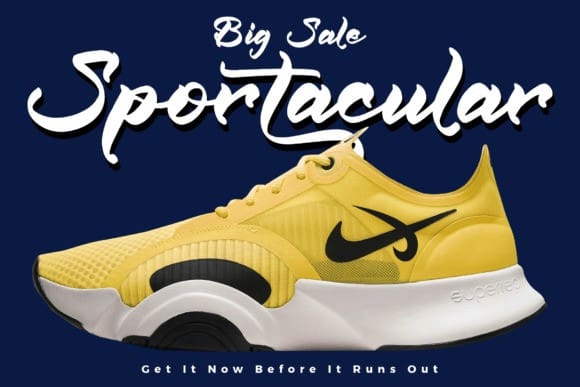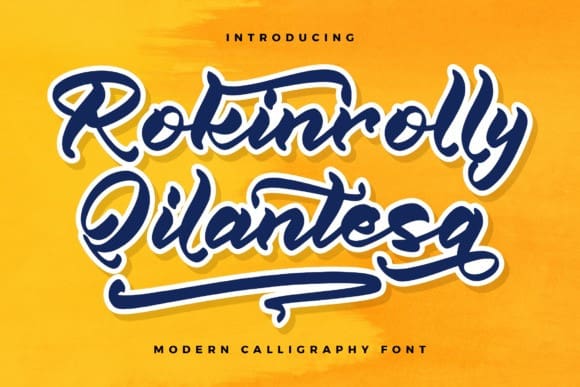
Rokinrolly Qilantesa Font
Rokinrolly Qilantesa Font – Modern Calligraphy Font , from Glorytype Studio, suitable for any projects such as: logos, branding projects, homeware designs, product packaging, mugs, quotes, posters, shopping bags, t-shirts, book covers, name card, invitation cards, greeting cards, label, photography, watermark, special events, and all your other lovely projects that need a beautiful script taste.